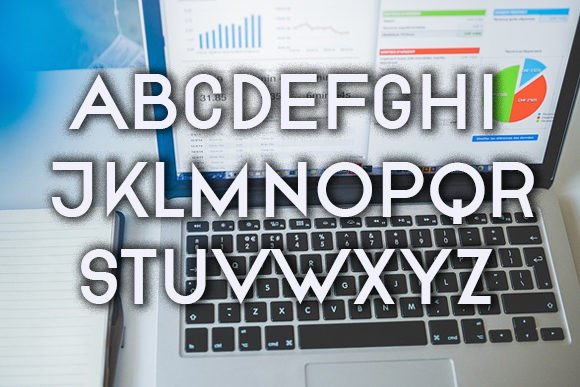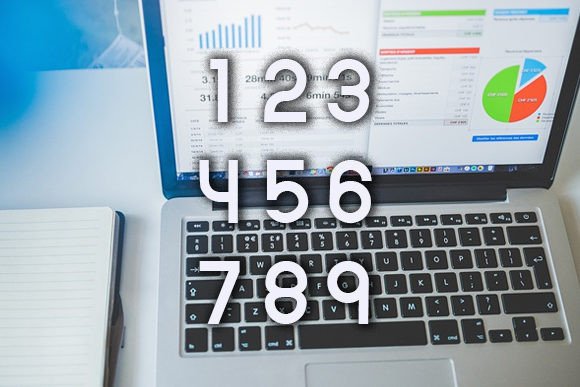
Styling Your Projects with the Perfect Font
There’s nothing quite like the thrill of a creative breakthrough. You’re brainstorming ideas for a new project, and suddenly, the perfect concept clicks into place. But what really brings it all together is the right font. A font that’s both stylish and versatile, capable of elevating your designs from good to great. That’s where the Bureau Font comes in.
This sleek Sans Serif font is designed to make a statement, whether you’re creating eye-catching banners, attention-grabbing headlines, or informative flyers. Its clean lines and modern aesthetic ensure that your message will be conveyed with clarity and style.
Bureau Font Key Features
- Size: The font family includes multiple weights, ranging from Light to Extra Bold, with each weight available in 5 different optical sizes (8, 10, 12, 14, and 18 points) to ensure optimal readability.
- Unique Characteristics: Bureau Font features a distinctive, elegant design with a high x-height and subtle flair on the terminals, giving it a classic and sophisticated look.
- Language Support: The font family includes comprehensive language support for Latin-based languages, including Western, Central, and Eastern European languages, as well as support for many non-Latin scripts.
- Kerning and Ligatures: Bureau Font includes advanced kerning and ligature tables to ensure smooth text rendering and optimal typography.
Bureau Font Review
Overall, I found the Bureau Font to be a solid choice for most design projects. Here are some aspects that I think work well:
- ✨ The font has a clean and professional look, making it perfect for business and corporate materials.
- ✨ The weight range is decent, offering a variety of styles to choose from.
- ✨ The font is highly legible, even at small font sizes.
- ⚠️ The font lacks a unique personality and may not stand out from more popular fonts.
- ⚠️ The font family is not as extensive as some other popular fonts, which may limit its versatility.
Overall, I think the Bureau Font is a reliable choice for designers who want a clean and professional look. While it may not be the most exciting font, it gets the job done. If you’re looking for a font that’s easy to read and works well in a variety of contexts, the Bureau Font is worth considering.
Tips for Getting the Most Out of Bureau Font
Use Bureau Font for titles and headings to add a touch of sophistication and elegance to your designs.
Pair Bureau Font with a clean and modern sans-serif font for a balanced and harmonious look.
Experiment with different font sizes and styles to create visual interest and hierarchy in your designs.
Bureau Font is ideal for:
Corporate
While Bureau Font is primarily designed for digital use, it can also be used effectively in print applications. However, please note that the font’s screen-optimized design may not be as suitable for high-resolution print materials. In such cases, a print-specific font may be a better choice.